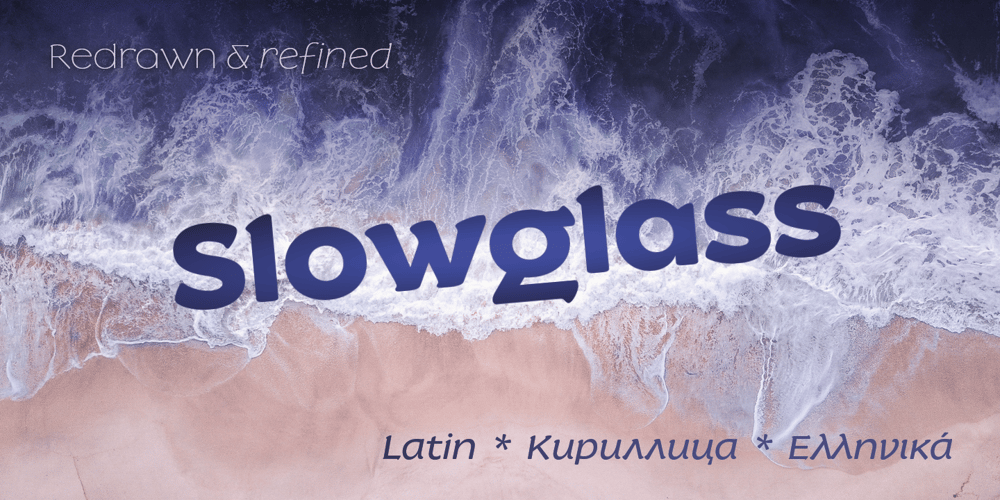
Slowglass Font Family was designed by Adam Jagosz and published by Adam Jagosz. Slowglass contains 30 styles and family package options. Slowglass is a geometric semi-serif accompanied by geohumanist italics. Softly rounded edges lend it a friendly tone. The typeface includes two categories of stylistic alternates, available as font features as well as complementary font subfamilies. Text forms for increased legibility (Slowglass Text) and uncial-inspired unicase variants (Slowglass Alt). At over 1500 glyphs per weight, the fonts support 80+ Latin-based languages (incl. Vietnamese), 14 Cyrillic-based languages and polytonic Greek.OpenType features: Six sets of figures: proportional / tabular × oldstyle / lining / petite (ss20) Superscript and subscript figures Fractions, numerators, denominators Optional slashed zero Case-sensitive forms Glyph composition/decomposition (support for Navajo and Greek) Localization (Dutch, Marshallese, Bulgarian) Stylistic Sets: ss01 Roman: Two-story a, loopy α / Italic: Loopy α ss02 Roman: Simple g / Italic: Simple k ss03 Unicase r ss04 Alt f t г п т γ ss05 Descending η χ ss06 Unicase β ζ θ ξ ss07 Alt в г д ж з к п т ю ss08 Latinized ς, cursive и й ss09 Round Δ Λ Д д Л л Љ љ ss10 Full-stem a q ss11 Seriffed I ss12 Unicase A ss13 Unicase E Ω ss14 Descending F T Г П ss15 Descending G P Q Y ss16 Unicase M N И H Y ss17 Extending Φ Ψ ss20 Petite figures